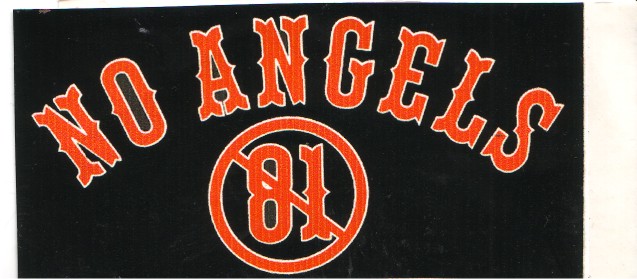
Font ID Please
guessing it's a design meant to slander a particular gang.. that's an 01 in the slash, right? dont they usually wear a 1% on their colors? yeah, I'd steer clear of replicating this or even dealing with the customer who requested it if I'm right.
If you look at Shovelheads avatar, he obviously has leanings toward a particular motorcycle affiliation, that t-shirt is related to the ending of that particular association by violent means....
Nope, still not getting the significance of the 81. Don't matter really but.. I could see if you were anti-nazi and put a slash thru an "88"... but 81?
I think the 81 is a reference to the Oakland CA chapter of Hell's Angels.
I doubt the font has much significance since it is only a poorly matched choice for the western style font used by the group. You could use any number of western style fonts and it probably would not matter.